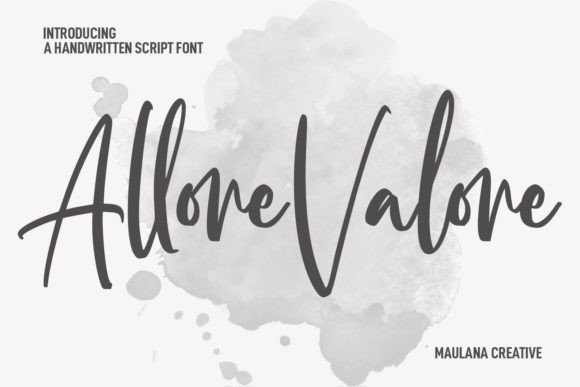
Unleash your inner artist and embrace the allure of Allore Valore, a captivating script font that dances gracefully across your designs. Its high-contrast strokes and playful characters evoke a sense of whimsy and elegance, perfect for adding a touch of magic to your creative endeavors.
Whether you're crafting a captivating logo, immersing your audience in a captivating social media post, or gracing a movie title with unforgettable flair, Allore Valore will elevate your words into works of art. Its versatility knows no bounds, lending itself seamlessly to book titles, short and long text letters, and as a captivating complement to sans or serif fonts.
Each stroke of Allore Valore is infused with emotion, inviting you to express yourself with unparalleled creativity. Let your imagination soar as you create stunning designs that resonate with your audience and leave an everlasting impression.